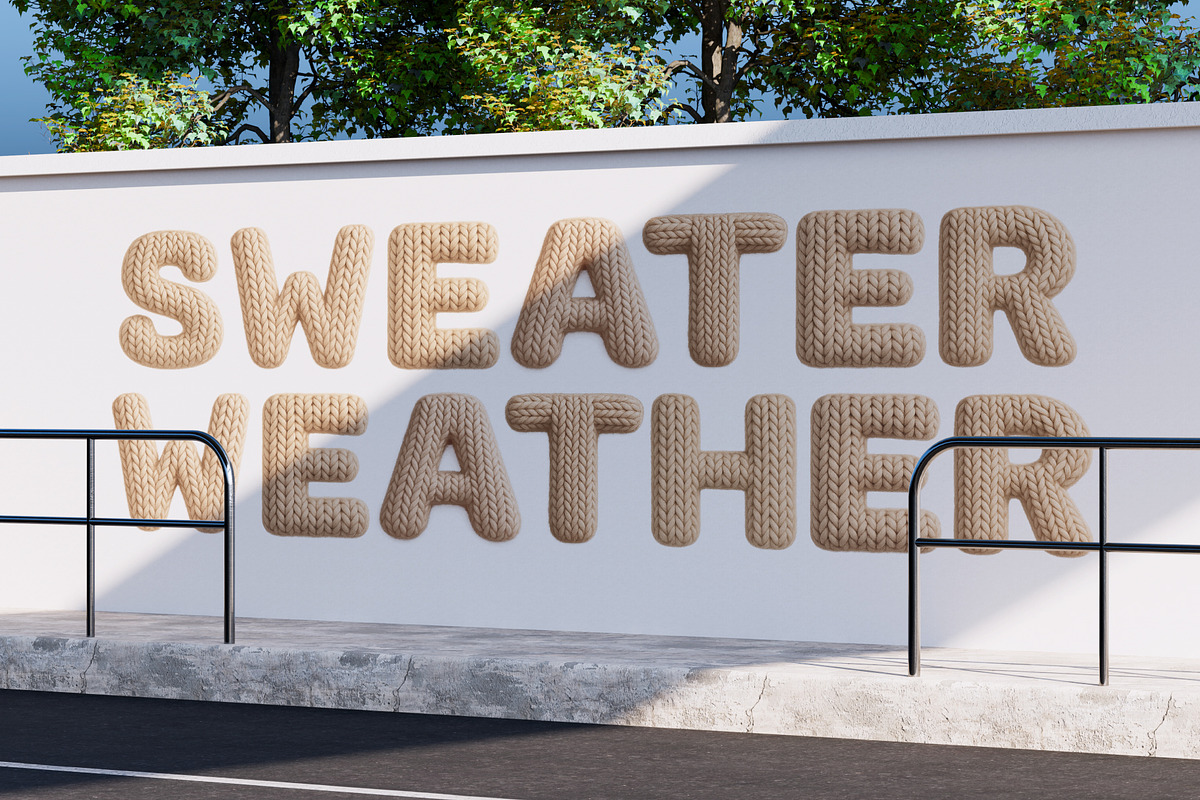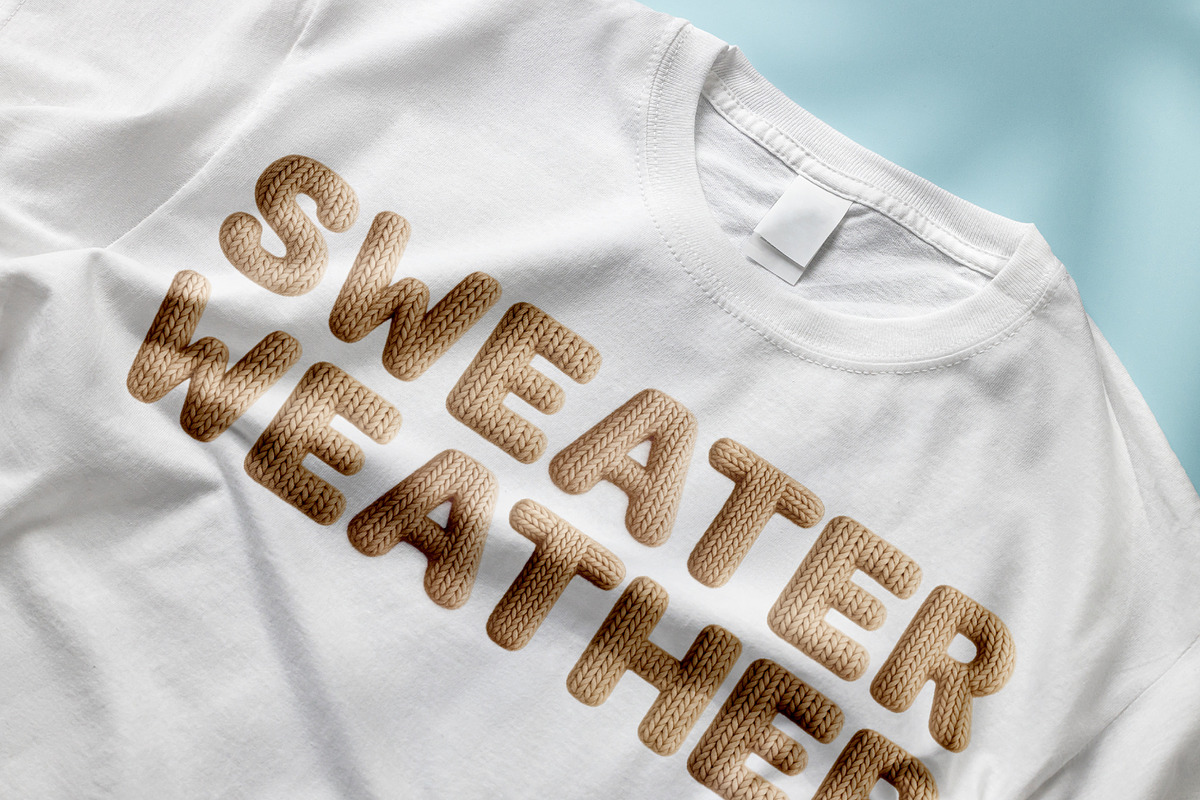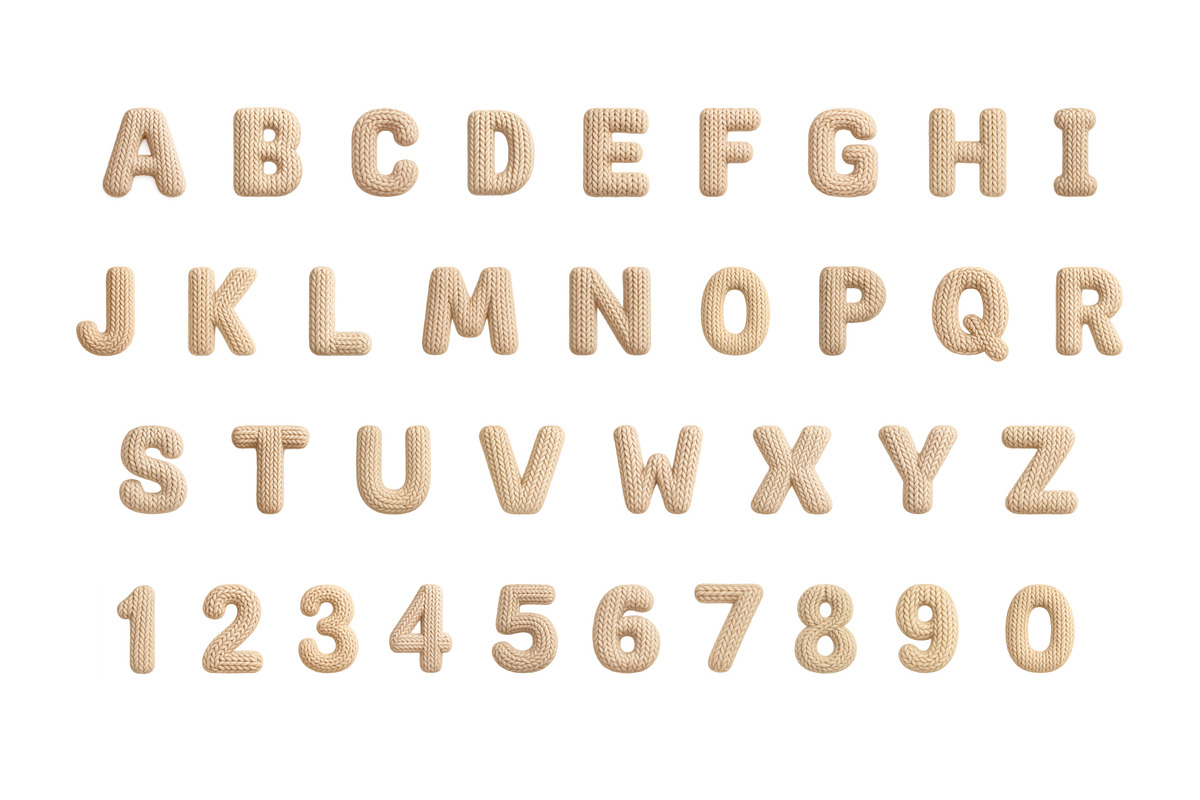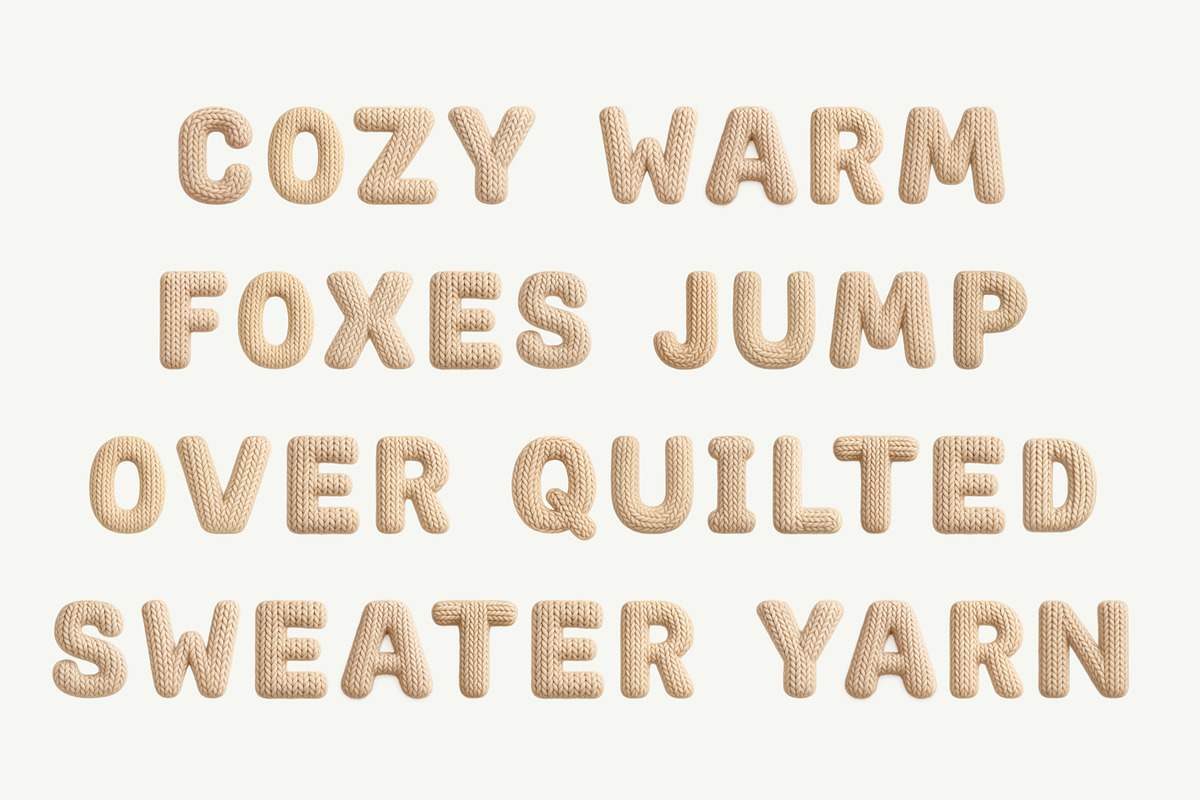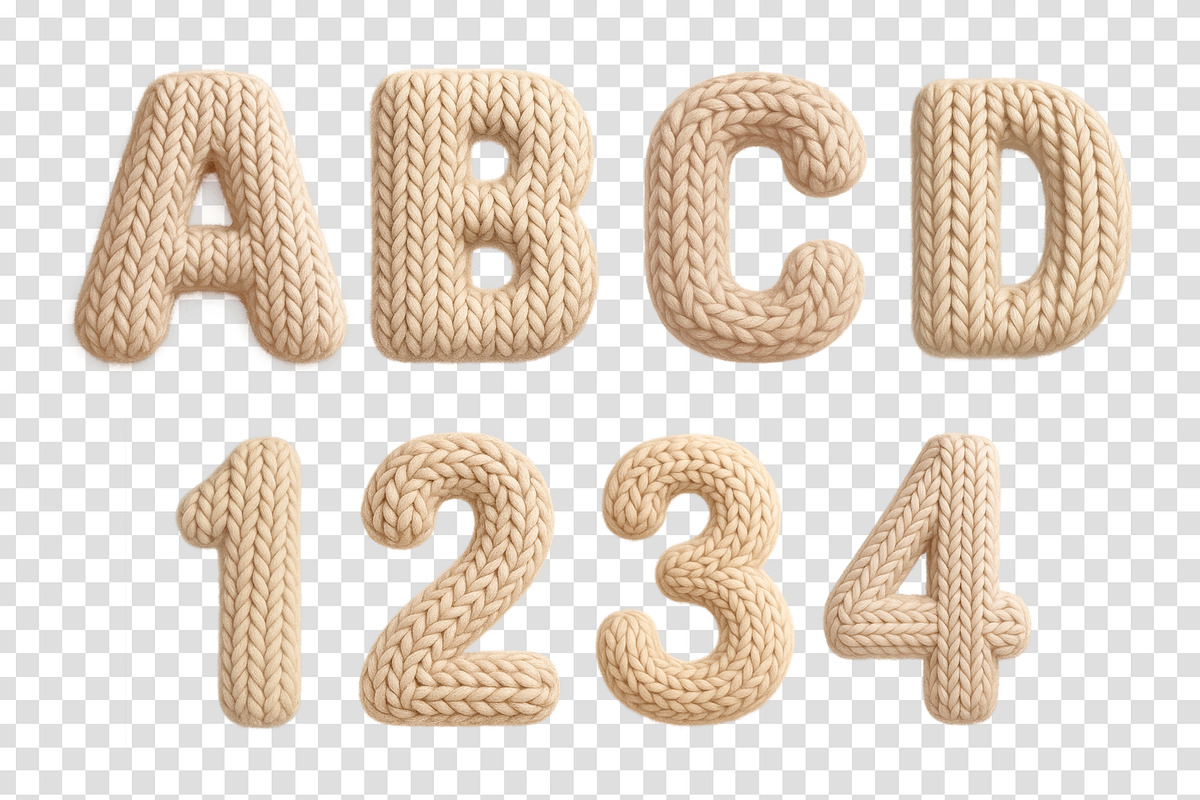
Knit Sweater
Knit Sweater is a cozy 3D display font crafted from soft, chunky yarn stitched into plush, sweater-style letters. Each character features a realistic knitted texture and depth, giving your designs the warm, handmade feel of winter crafts and holiday sweaters. It’s perfect for Christmas cards, winter branding, apparel, posters, packaging, invitations, or any project that needs a comfy, seasonal touch.
This OpenType-SVG bitmap font includes uppercase letters and numerals only. Every glyph is built from high-resolution stitches baked directly into the font file, creating a photorealistic, tactile effect ideal for large display use such as titles, signage, and merch.